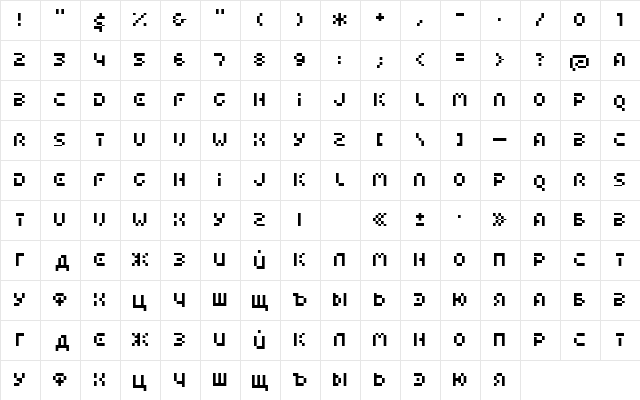
Airport Cyr Regular
| Designer | THORSTEN.SCHRAUT (eng.) | Dubina Nikolay (cyr.) |
Design Context for Airport Cyr Typeface
Airport Cyr offers clean, dependable letterforms without strong stylistic allegiance, making it a practical choice for designers who need flexibility.